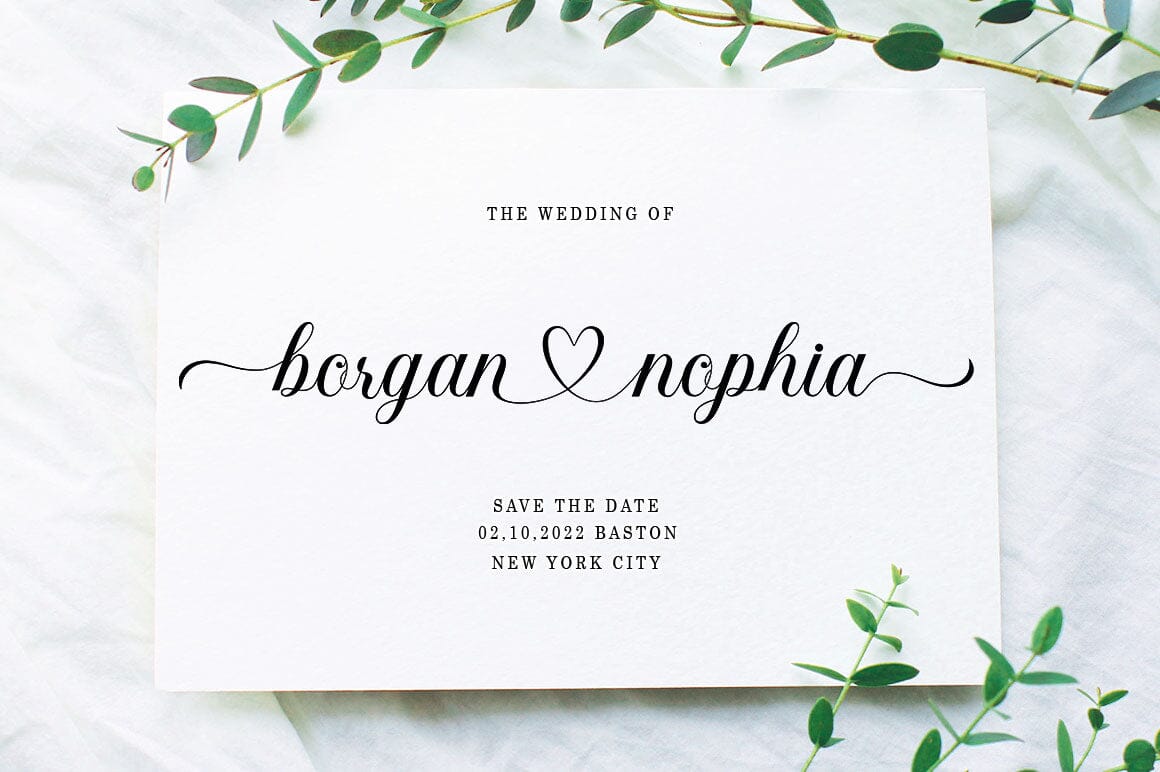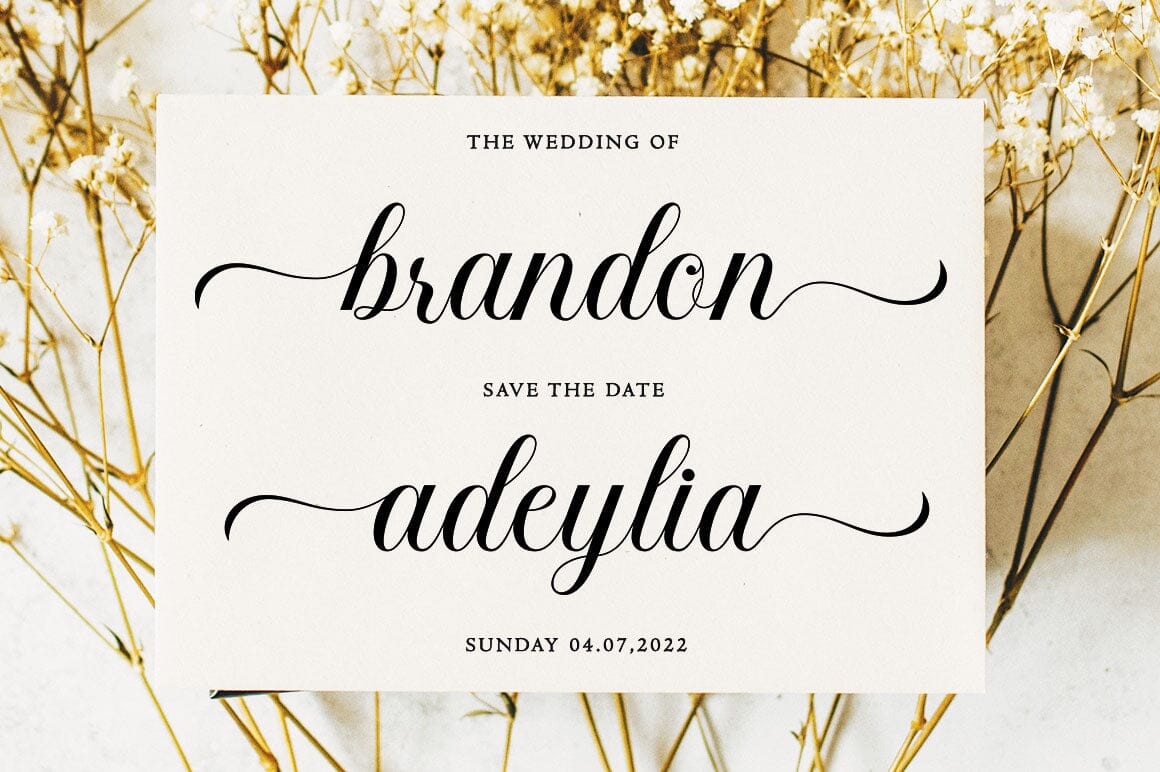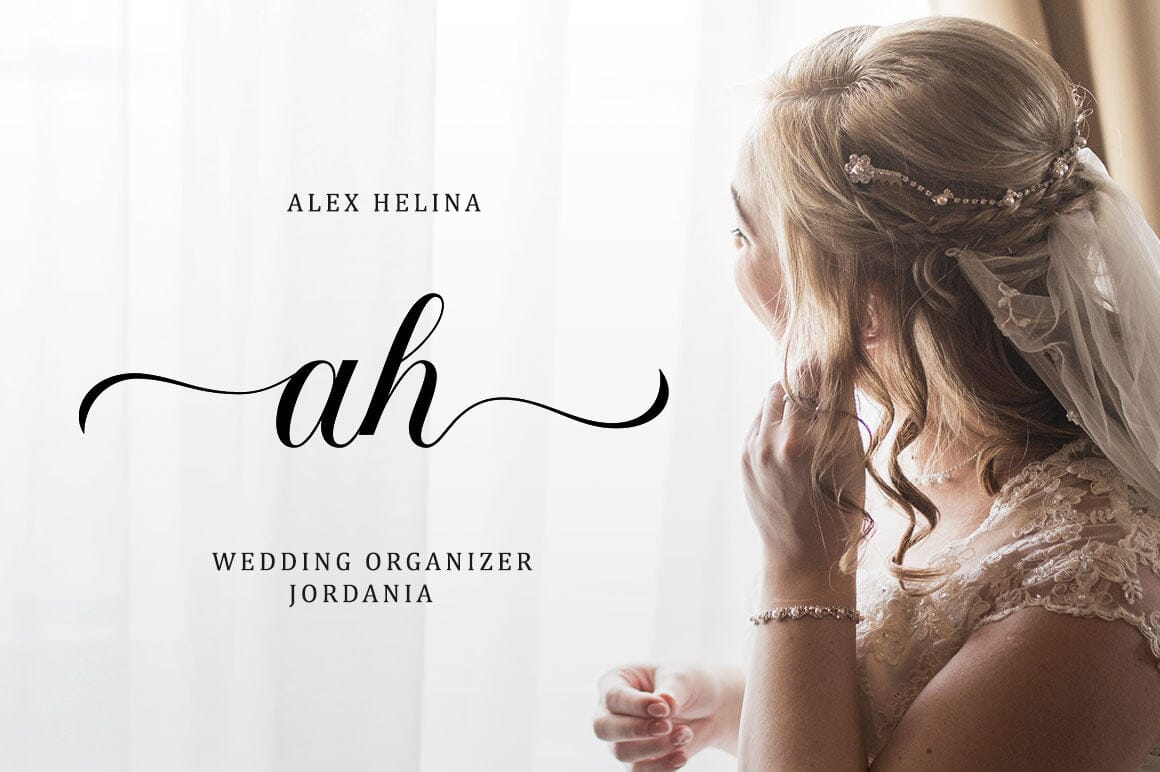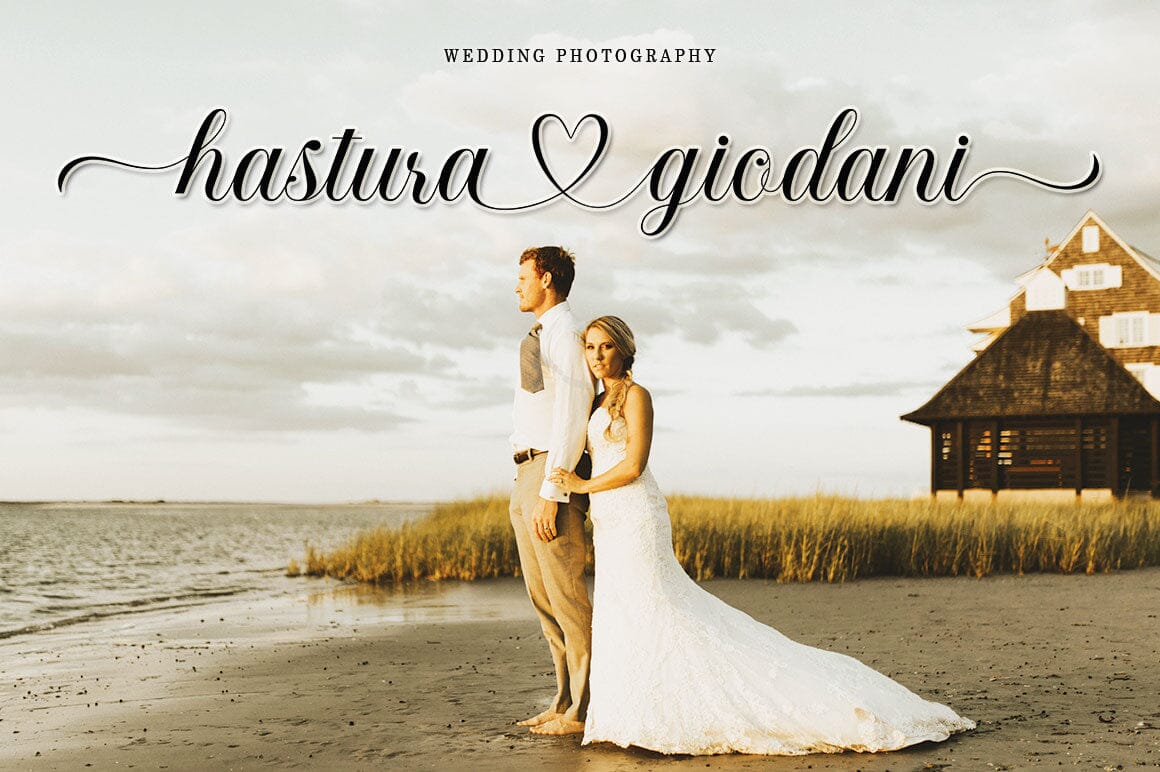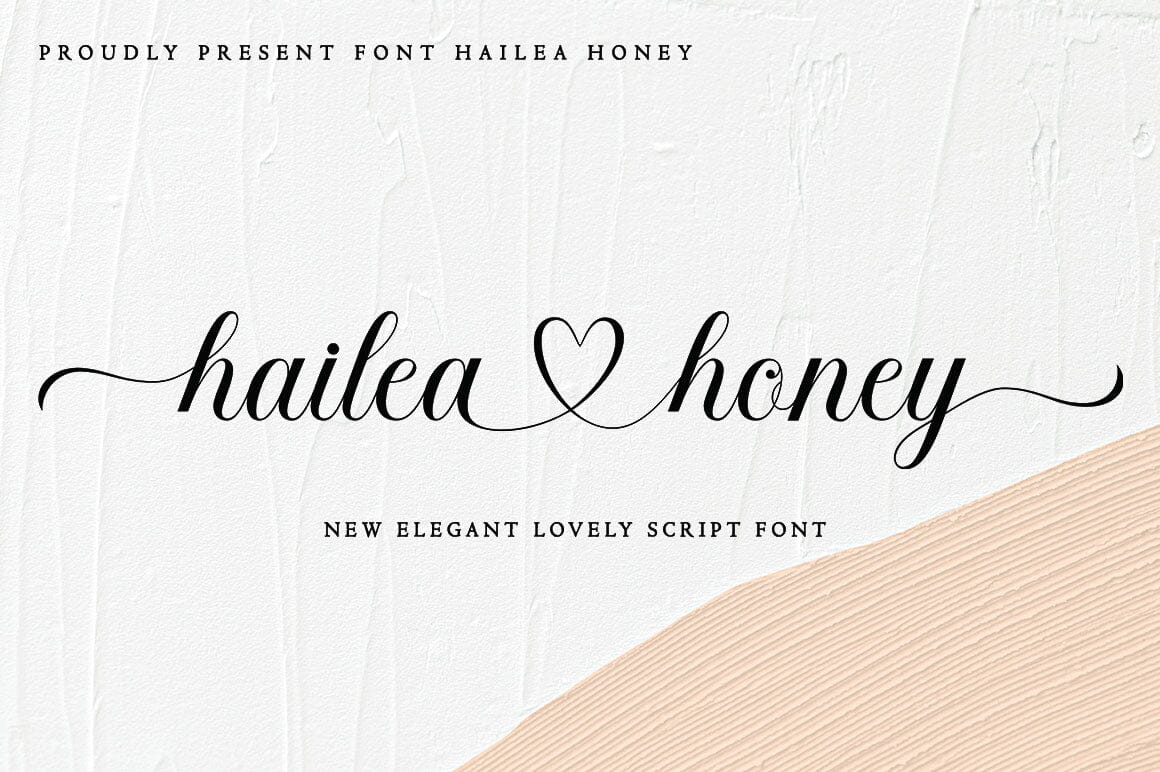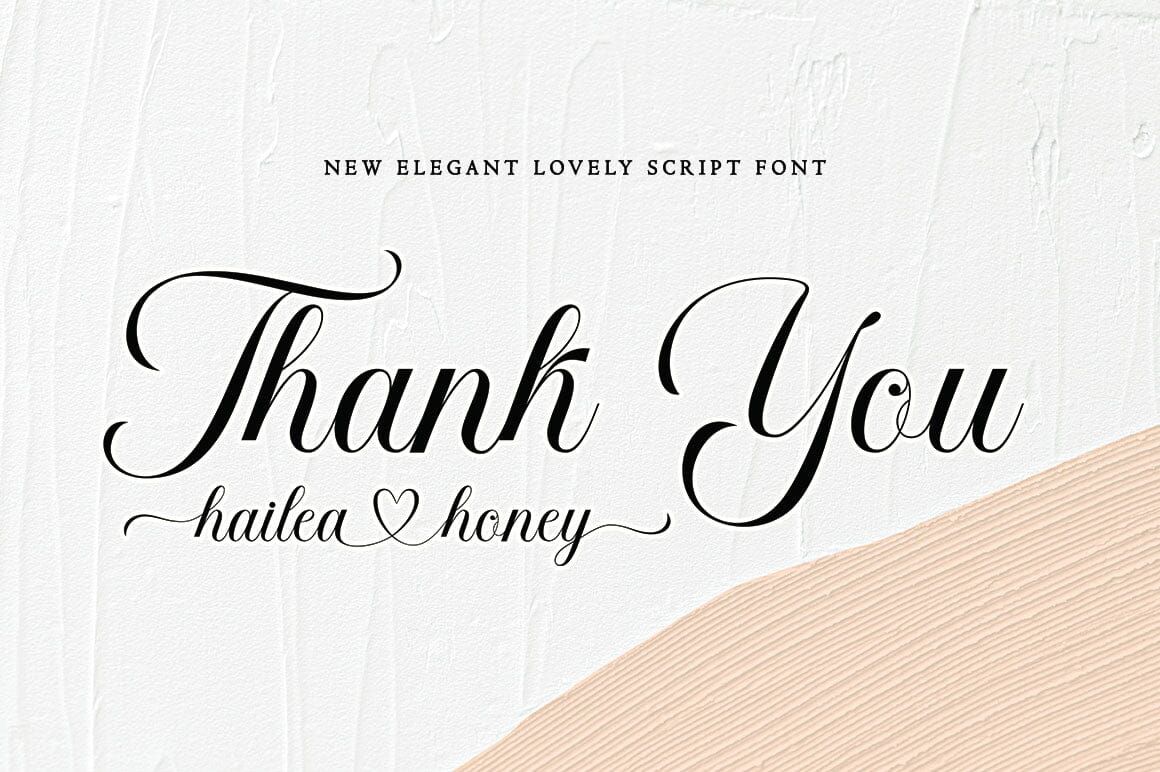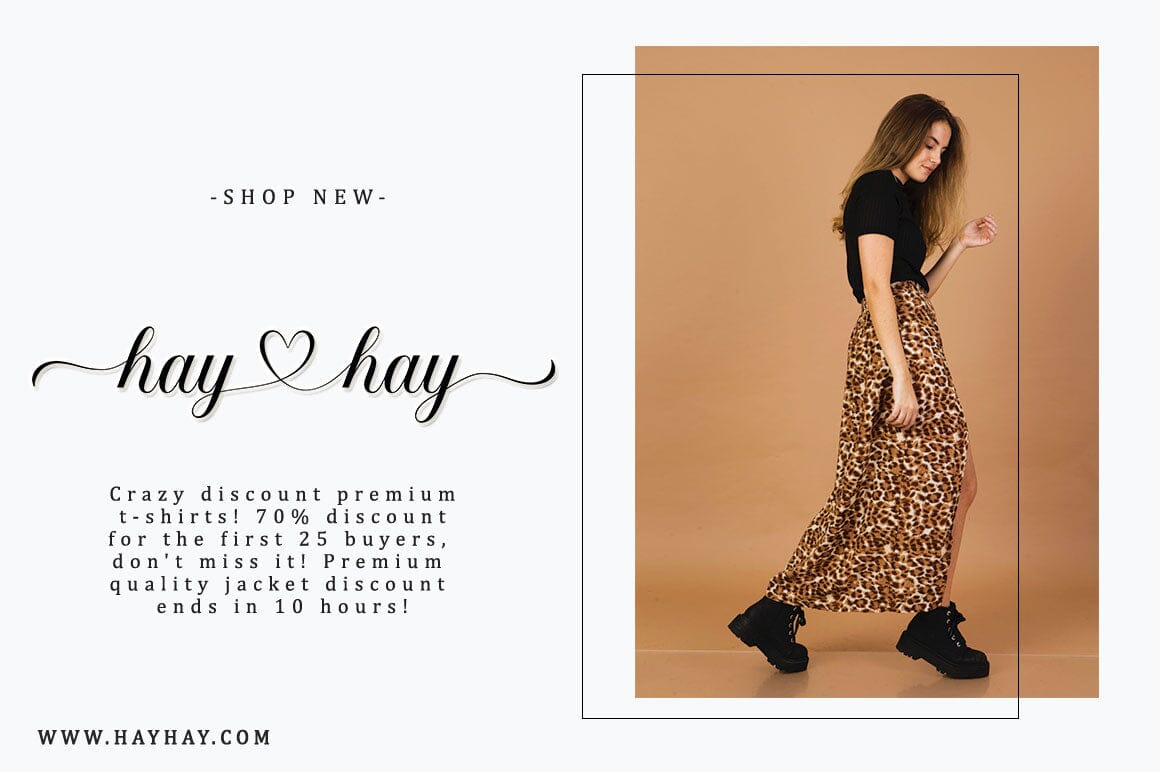
Hailea Honey Lovely Font
Hailea Honey is a beautiful script perfect for branding, wedding invitations, and other romantic projects. This love centered look makes it perfect for use in all your design projects be it logos, labels, packaging designs, blog titles, posters, wedding designs, social media posts, Instagram designs, etc. В Contains full set: -4 Type Font -Uppercase -Lowercase -Alternative -Ligatures -Punctuation -Number -Multilingual support. В I hope you enjoy this font. If you have any questions, feel free to message me 🙂 В Thank you for your purchase!